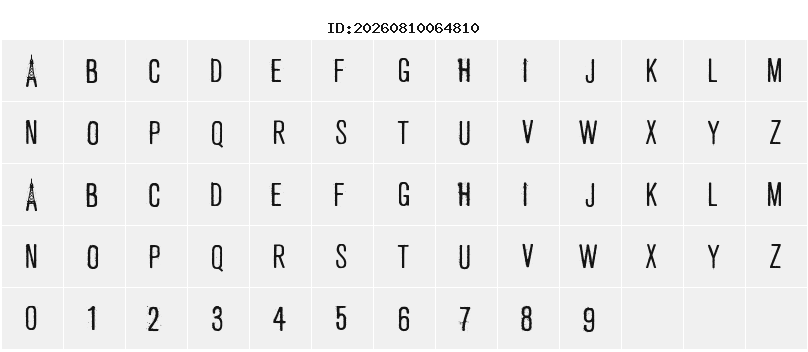
PRAY FOR PARIS Preview
• Font Name: PRAY FOR PARIS
• Font ID: PRAY FOR PARIS:Version 1.00
• Full Font Name: PRAY FOR PARIS
• Version: Version 1.00 November 14, 2015, initial release
• PostScript Name: PRAYFORPARIS
• Character Count: 107
About PRAY FOR PARIS.otf
PRAY FOR PARIS.otf is a modern, elegant sans-serif font designed for ultimate readability and visual harmony. Perfect for branding, headlines, web design, and print materials.